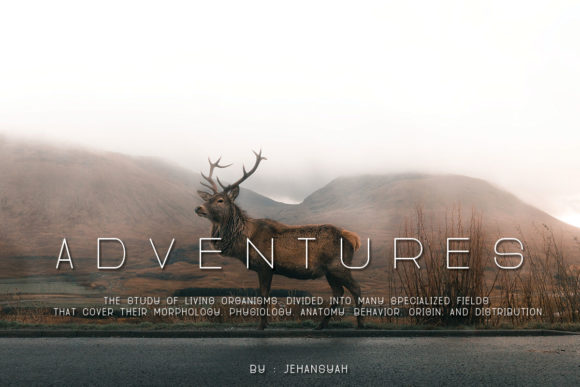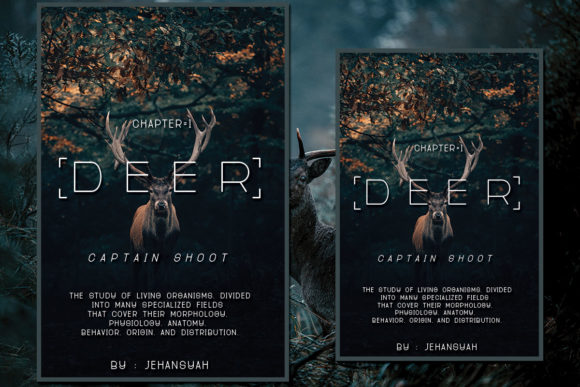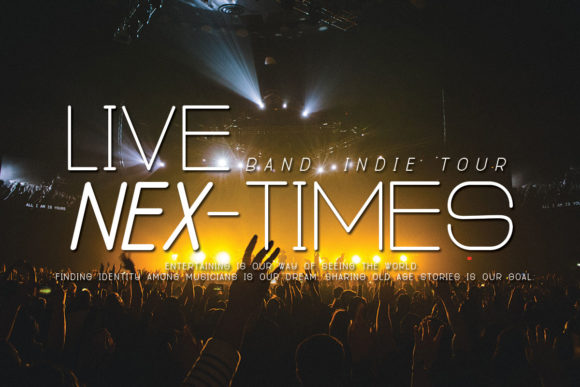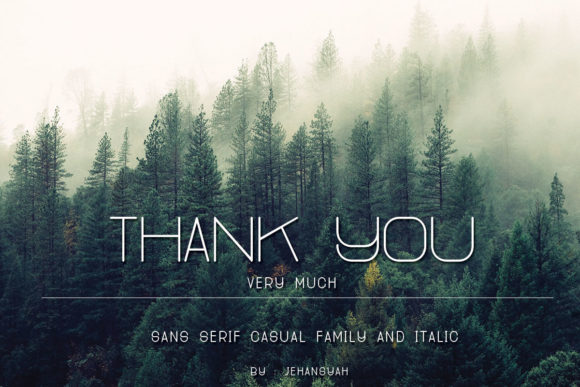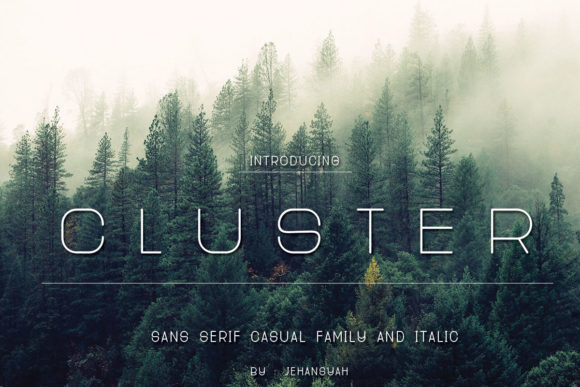
Discover the Elegance of Cluster Font: A Sweet Sans Serif for Your Creative Projects
In the world of typography, fonts play a crucial role in conveying messages, expressing ideas, and creating a lasting impression. For designers, crafters, and writers, finding the perfect font can be a daunting task. However, if you’re looking for a font that exudes elegance, sweetness, and tranquility, look no further than Cluster Font. In this article, we’ll explore the features, benefits, and uses of Cluster Font, and why it’s an excellent choice for your next creative project.
What is Cluster Font?
Cluster Font is a beautiful, sans serif font that boasts an elegant and sweet aesthetic. Its clean lines, rounded edges, and balanced proportions make it perfect for use in a variety of design applications, from titles and headings to formal writing and creative projects. Cluster Font is designed to provide a sense of tranquility and sophistication, making it an excellent choice for designers and crafters who want to add a touch of elegance to their work.
Key Features of Cluster Font
So, what makes Cluster Font stand out from other fonts? Here are some of its key features:
• Elegant and Sweet Design: Cluster Font’s design is characterized by its elegant and sweet aesthetic, making it perfect for projects that require a touch of sophistication.
• Sans Serif: As a sans serif font, Cluster Font is clean, modern, and highly legible, making it perfect for use in digital and print applications.
• Tranquil and Calming: Cluster Font’s design is meant to evoke a sense of tranquility and calmness, making it perfect for projects that require a soothing and peaceful aesthetic.
• Highly Versatile: Cluster Font is highly versatile and can be used in a variety of design applications, from titles and headings to formal writing and creative projects.
Benefits of Using Cluster Font
So, why should you choose Cluster Font for your next project? Here are some benefits of using Cluster Font:
• Enhances Readability: Cluster Font’s clean design and balanced proportions make it highly legible, even at small sizes.
• Adds Elegance and Sophistication: Cluster Font’s elegant and sweet design adds a touch of sophistication to any project, making it perfect for formal writing and creative projects.
• Perfect for Titles and Headings: Cluster Font is perfect for use in titles and headings, where its elegant and sweet design can make a lasting impression.
• Great for Digital and Print Applications: Cluster Font is highly versatile and can be used in both digital and print applications, making it a great choice for designers and crafters.
Uses of Cluster Font
So, how can you use Cluster Font in your creative projects? Here are some ideas:
• Titles and Headings: Use Cluster Font as a title or heading font to add a touch of elegance and sophistication to your project.
• Formal Writing: Cluster Font is perfect for use in formal writing, such as academic papers, business reports, and professional documents.
• Creative Projects: Cluster Font can be used in a variety of creative projects, such as posters, flyers, brochures, and more.
• Branding and Identity: Cluster Font can be used as a brand font to create a consistent and elegant visual identity.
Font Name Cluster Font
Author jehansyah251
In conclusion, Cluster Font is a beautiful, elegant, and sweet sans serif font that’s perfect for designers, crafters, and writers. Its tranquil and calming design makes it perfect for projects that require a soothing and peaceful aesthetic. With its highly versatile design, Cluster Font can be used in a variety of applications, from titles and headings to formal writing and creative projects. Whether you’re looking to add a touch of elegance to your project or create a lasting impression, Cluster Font is an excellent choice.